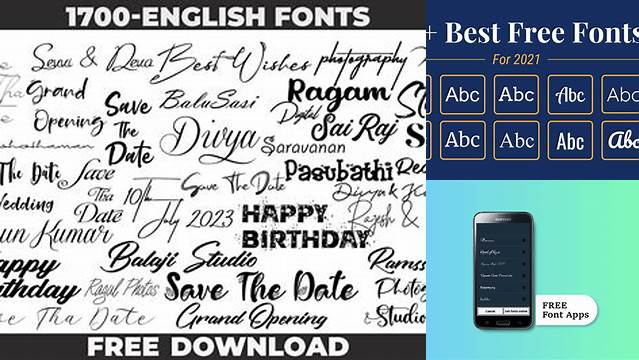
Free English Fonts For Android: Download Now!
Hey guys! Want to jazz up your Android phone with some cool new fonts? You've come to the right place! Finding the perfect font can really change the look and feel of your device, making everything from texting to browsing the web a more enjoyable experience. This article is your ultimate guide to finding and downloading free English fonts for your Android device. We'll cover everything from where to find them, how to install them, and even some of the best font styles out there. So, let's dive in and get your phone looking its best!
1. Where to Find Free English Fonts for Android
Finding free English fonts for Android might seem like a daunting task, but trust me, it's easier than you think! There are tons of resources available online, but it's important to stick to reputable sources to avoid downloading anything shady. Think of it like this: you wouldn't download a random app from an unknown website, right? Same goes for fonts! Let’s explore some safe and reliable options, guys. One of the best places to start is the Google Play Store. There are numerous apps dedicated to font installation, many of which offer a wide variety of free fonts. These apps often have user reviews and ratings, which can help you gauge the quality and safety of the fonts they offer. Websites specializing in font downloads, such as Fontspace, DaFont, and Google Fonts, are also great resources. These sites usually have well-organized libraries, allowing you to filter fonts by style, license, and language. Make sure to check the license before downloading to ensure the font is free for personal use. Another fantastic option is exploring font marketplaces like Creative Market and MyFonts. While these platforms primarily offer premium fonts, they often have sections with freebies or regularly run promotions where you can snag high-quality fonts for free. Social media groups and forums dedicated to Android customization can also be treasure troves for finding font recommendations. Users often share their favorite fonts and links to download them, making it a community-driven way to discover new styles. Remember, always prioritize downloading from trusted sources to keep your device safe and secure. This way, you can enjoy your new fonts without any worries!
2. Best Font Styles for Android
Choosing the best font styles for your Android can feel like picking a favorite ice cream flavor – there are just so many delicious options! Whether you're into sleek and modern looks, classic and elegant vibes, or something totally quirky and fun, there's a font out there for you. When selecting a font, think about what you want to achieve with your device's overall appearance. Are you aiming for a professional, polished look? Or perhaps a more playful and casual feel? Let’s break down some popular font styles, shall we? For a modern and clean aesthetic, sans-serif fonts like Roboto, Open Sans, and Montserrat are excellent choices. These fonts are highly readable and give a contemporary feel to your device. They work exceptionally well for menus, text messages, and general interface elements. If you prefer a more traditional and elegant look, serif fonts like Times New Roman, Georgia, and Playfair Display can add a touch of sophistication. Serif fonts have small decorative strokes at the ends of the letters, which can enhance readability in longer texts, such as e-books or articles. Script fonts, such as Brush Script MT or Pacifico, bring a handwritten feel to your device. These fonts are great for adding a personal touch and can be used for headings, quotes, or social media posts. Just be mindful of using them sparingly, as they can be less readable in large blocks of text. Decorative fonts, also known as display fonts, are designed to make a statement. They come in a wide range of styles, from bold and futuristic to whimsical and playful. These fonts are perfect for creating eye-catching titles or logos but should be used with caution in body text. Experiment with different font styles and see what resonates with your personality and preferences. Don’t be afraid to mix and match to create a unique and personalized look for your Android device. The key is to find fonts that not only look good but also enhance your overall user experience.